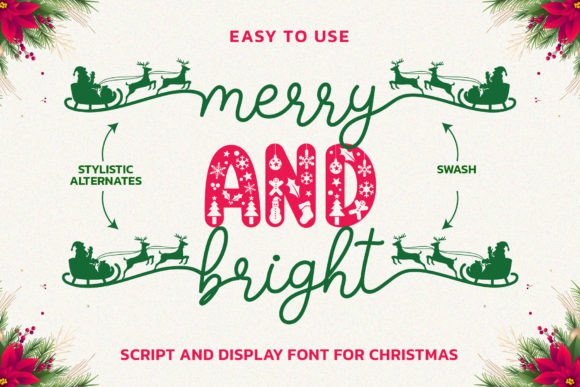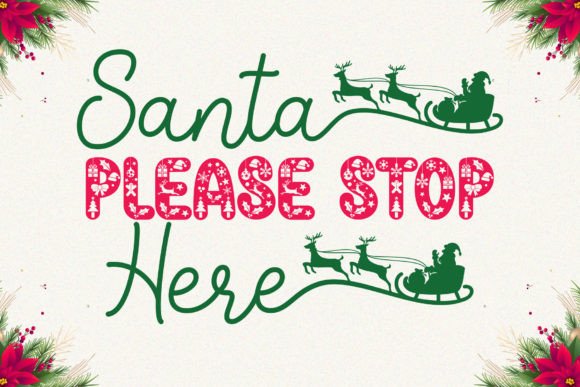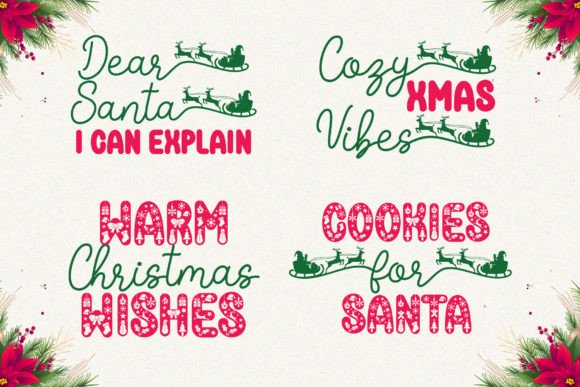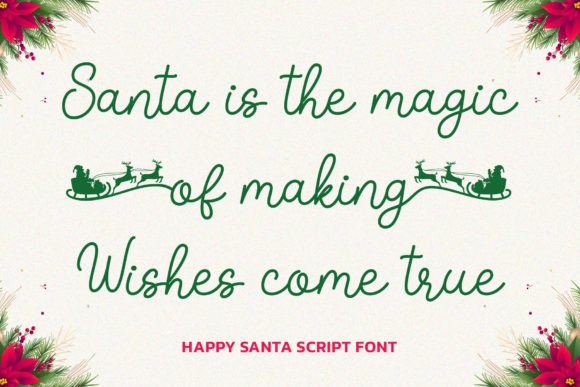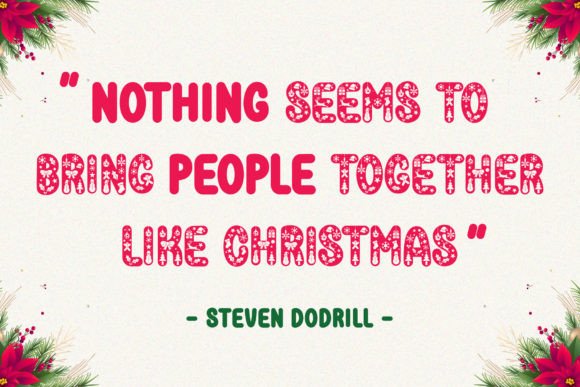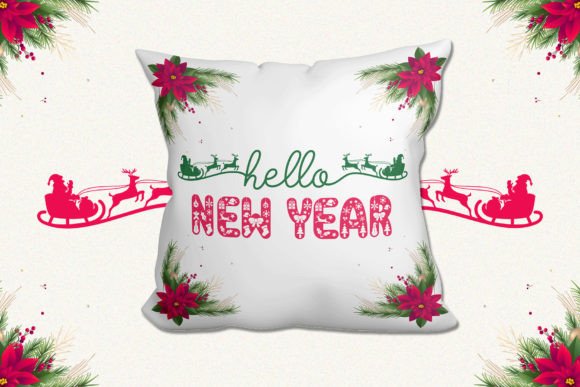
Introducing Happy Santa Duo Font: A Festive Christmas Font for Your Designs
Are you looking for a font that captures the magic and joy of Christmas? Look no further than the Happy Santa Duo Font, a beautiful and elegant font duo that’s perfect for creating adorable and kids’-related products with a cozy, cute Christmas theme. In this article, we’ll take a closer look at this festive font and explore its features, benefits, and uses.
What is Happy Santa Duo Font?
Happy Santa Duo Font is a Christmas concept font duo that consists of two styles: script and display. This font is inspired by the Santa and Christmas season, making it an ideal choice for designers and crafters who want to create festive and fun designs. The font is designed to be elegant and beautiful, with a playful touch that’s sure to bring a smile to anyone’s face.
Key Features of Happy Santa Duo Font
- Two Styles: The Happy Santa Duo Font comes with two styles: script and display. The script style is perfect for creating flowing, cursive text, while the display style is great for headlines and titles.
- Christmas Theme: The font is designed with a Christmas theme in mind, making it perfect for creating festive designs, such as holiday cards, gift tags, and more.
- Cute and Cozy: The font has a cute and cozy feel that’s perfect for kids’-related products, such as children’s books, toys, and clothing.
Benefits of Using Happy Santa Duo Font
There are many benefits to using the Happy Santa Duo Font in your designs. Here are a few:
- Elegant and Playful: The font is both elegant and playful, making it perfect for creating designs that are sophisticated and fun.
- Versatile: The font can be used for a wide range of designs, from holiday cards and gift tags to children’s books and toys.
- Unique: The font has a unique and distinctive look that’s sure to stand out from the crowd.
Uses for Happy Santa Duo Font
The Happy Santa Duo Font is perfect for a wide range of designs, including:
- Holiday Cards: Create festive holiday cards with the Happy Santa Duo Font.
- Gift Tags: Use the font to create cute and personalized gift tags.
- Children’s Books: The font is perfect for creating children’s books with a festive and fun theme.
- Toys and Clothing: Use the font to create labels and packaging for kids’ toys and clothing.
Tips for Using Happy Santa Duo Font
Here are a few tips for using the Happy Santa Duo Font:
- Experiment with Different Styles: Try using the script and display styles together to create a unique look.
- Use Swashes and Glyphs: Take advantage of the PUA encoding and use the swashes and glyphs to add extra flair to your designs.
- Pair with Other Fonts: Try pairing the Happy Santa Duo Font with other fonts to create a unique and interesting look.
The Happy Santa Duo Font is a beautiful and elegant font duo that’s perfect for creating festive and fun designs. With its two styles, PUA encoding, and Christmas theme, this font is ideal for designers and crafters who want to create adorable and kids’-related products. Whether you’re creating holiday cards, gift tags, or children’s books, the Happy Santa Duo Font is sure to bring a smile to anyone’s face.